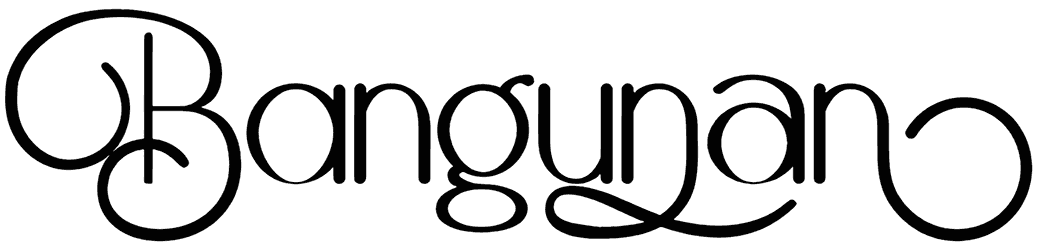
Bangunan Font
Designed bySSI.Scraps
Designing a romantic masterpiece requires many elements; if you want to start with one, go for the Bangunan. This romantic font distinguishes your work from others, and you can use it in so many different projects like Valentine’s cards, wedding invitations, dating websites, etc.